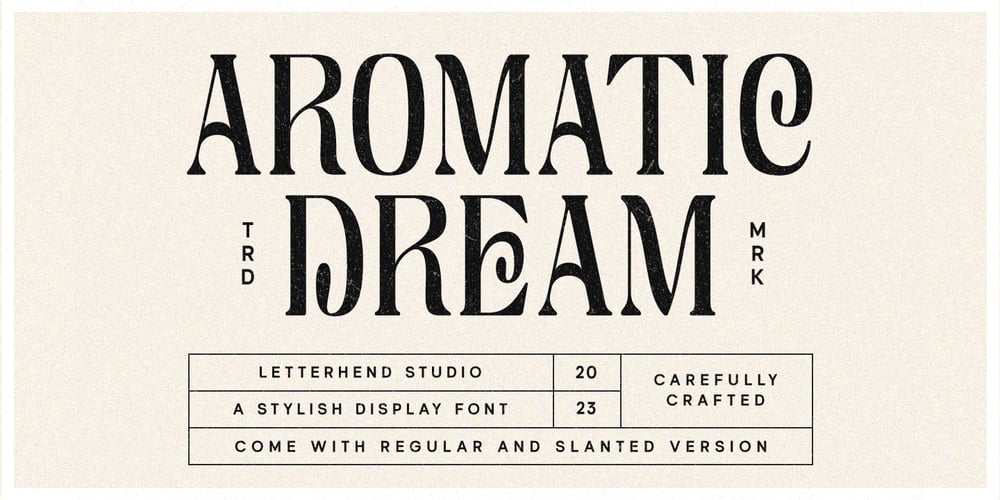
Aromatic Dream Font Family was designed by Hendry Juanda and published by Letterhend. Aromatic Dream contains 2 styles and family package options. Introducing, Aromatic Dream- Astylish font with chic & classic looks. This typeface has been made carefully to make sure its premium quality and luxury feel. Very suitable for logo, headline, tittle, and the other various formal forms such as invitations, labels, logos, magazines, books, greeting / wedding cards, packaging, fashion, make up, stationery, novels, labels or any type of advertising purpose.Features : Regular & Slanted Uppercase & lowercase Numbers and punctuation Multilingual PUA encoded We highly recommend using a program that supports OpenType features and Glyphs panels like many of Adobe apps and Corel Draw, so you can see and access all Glyph variations.